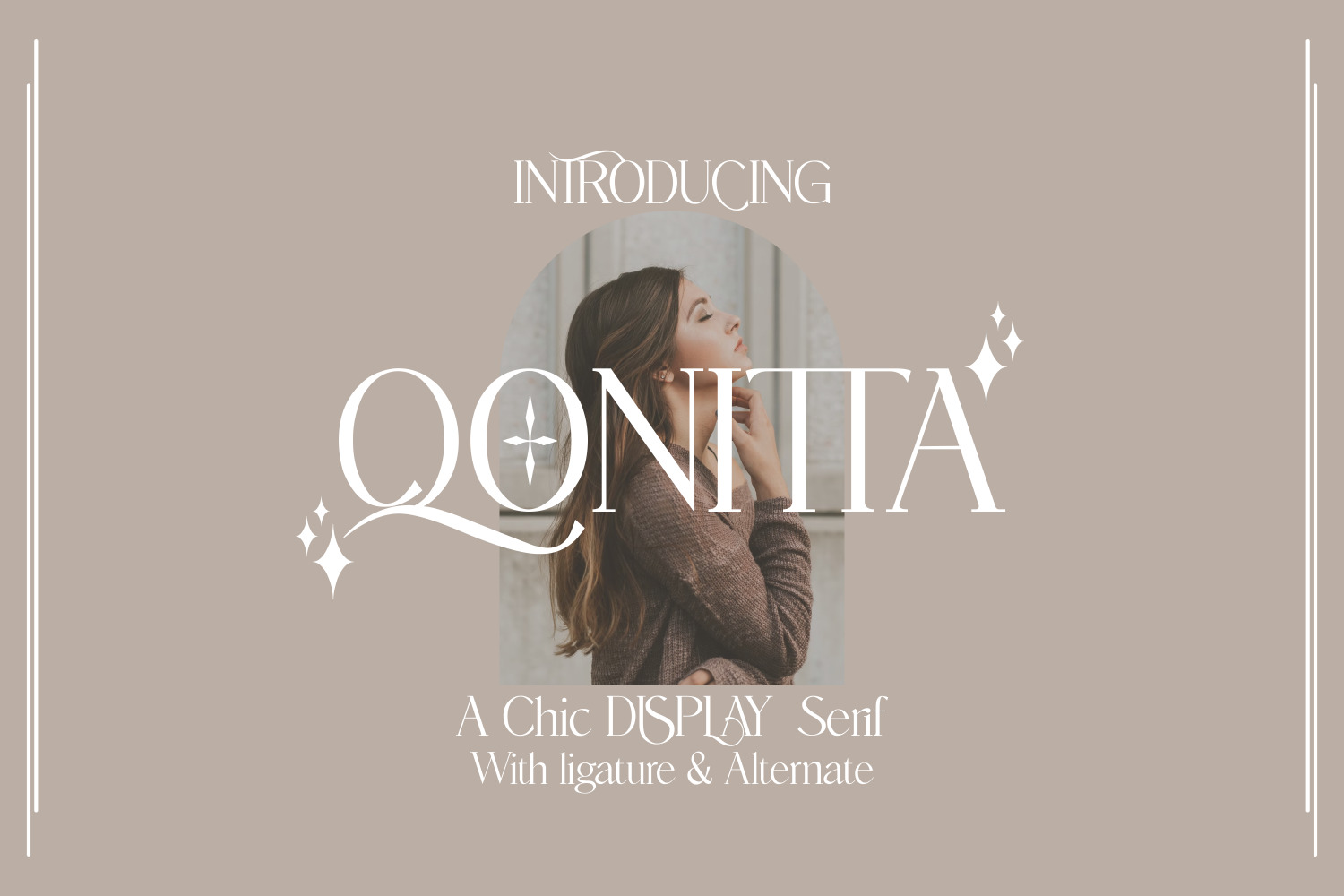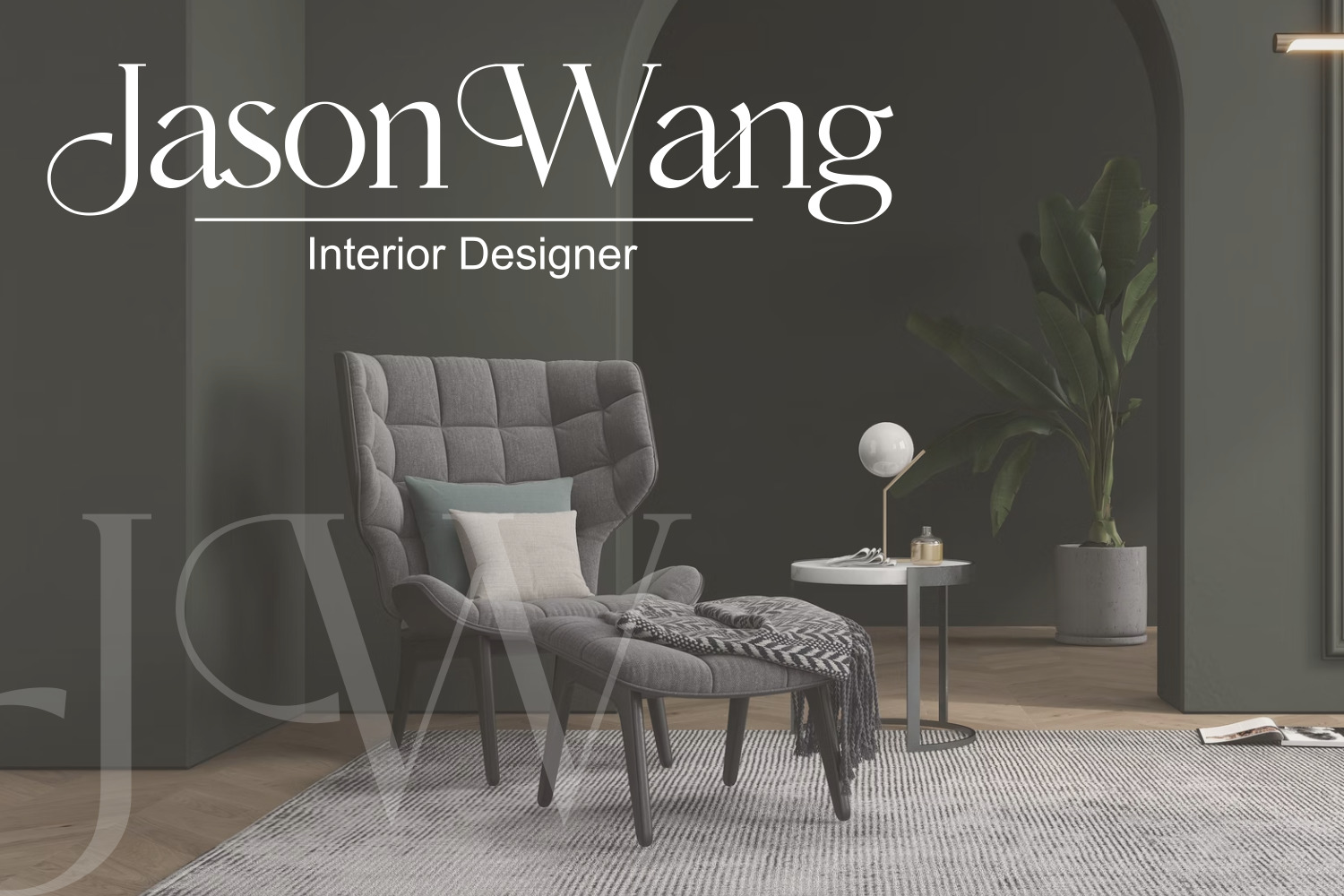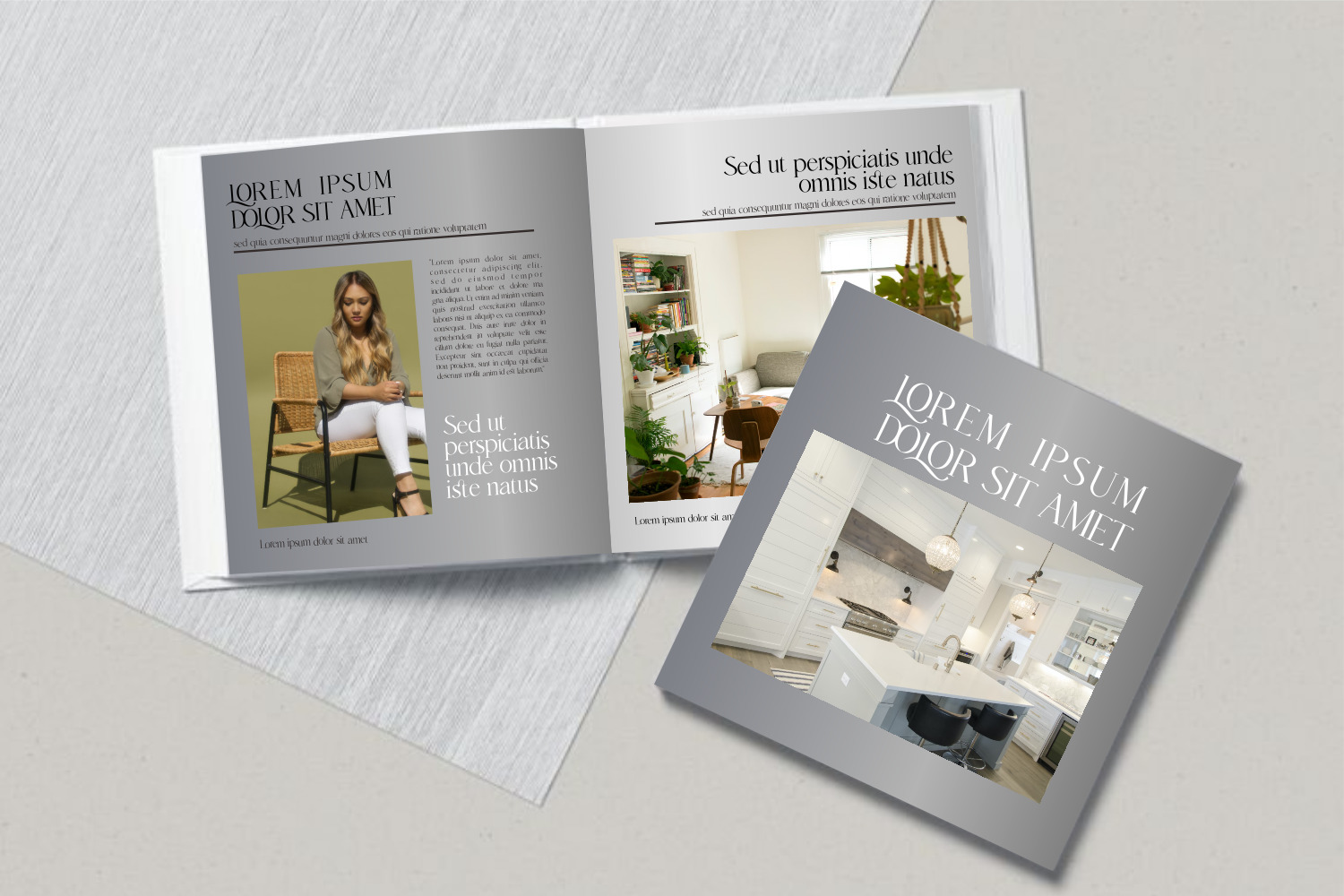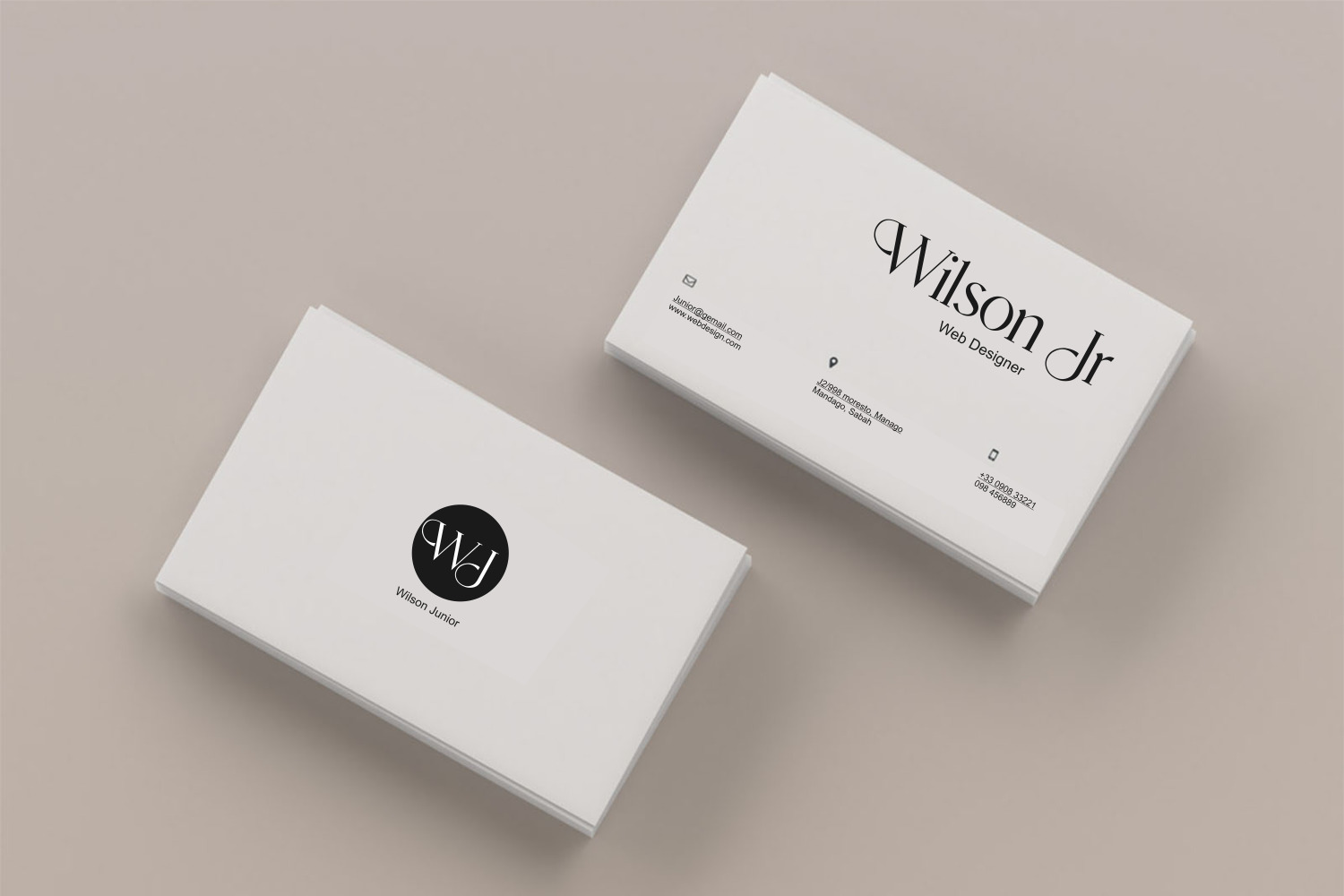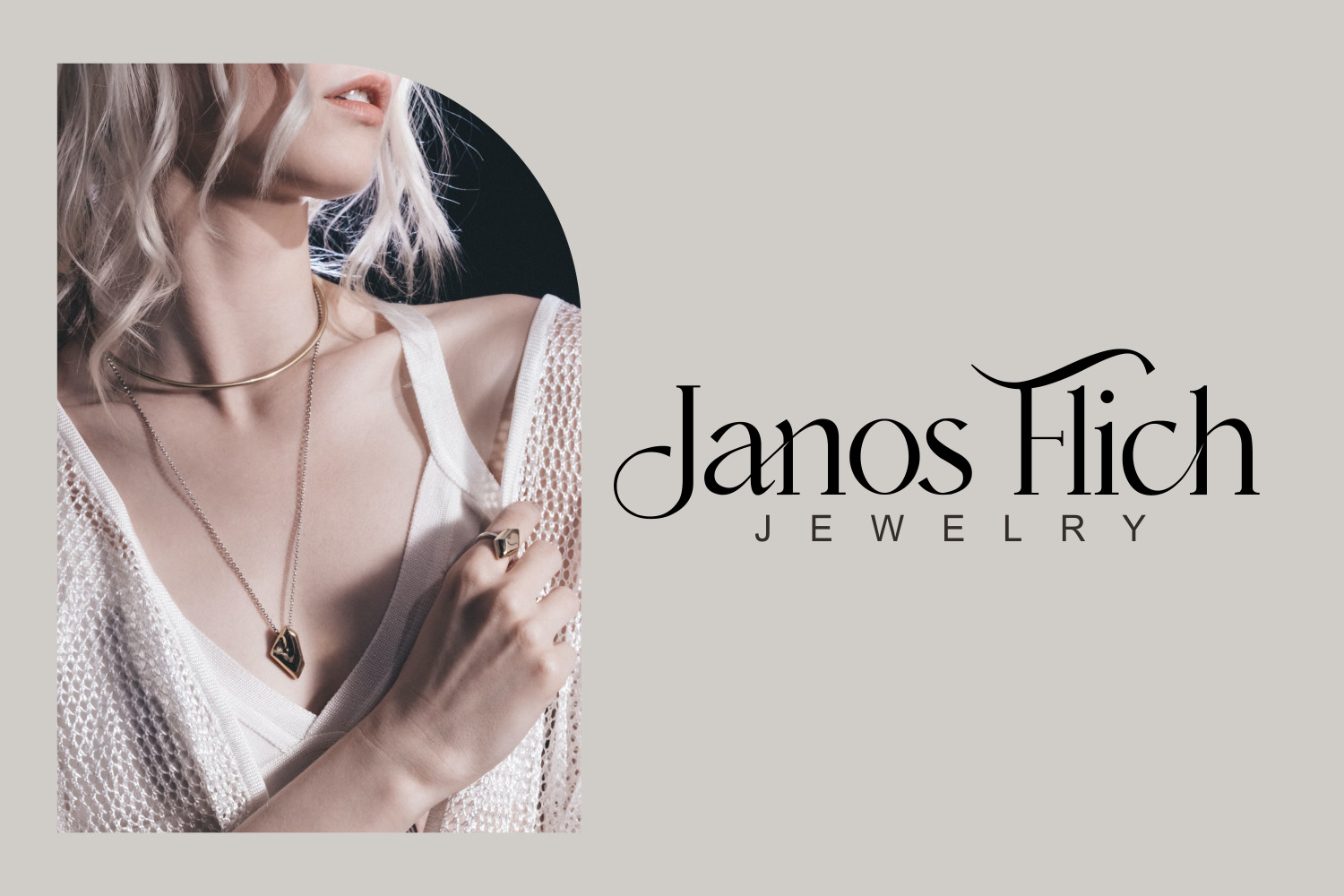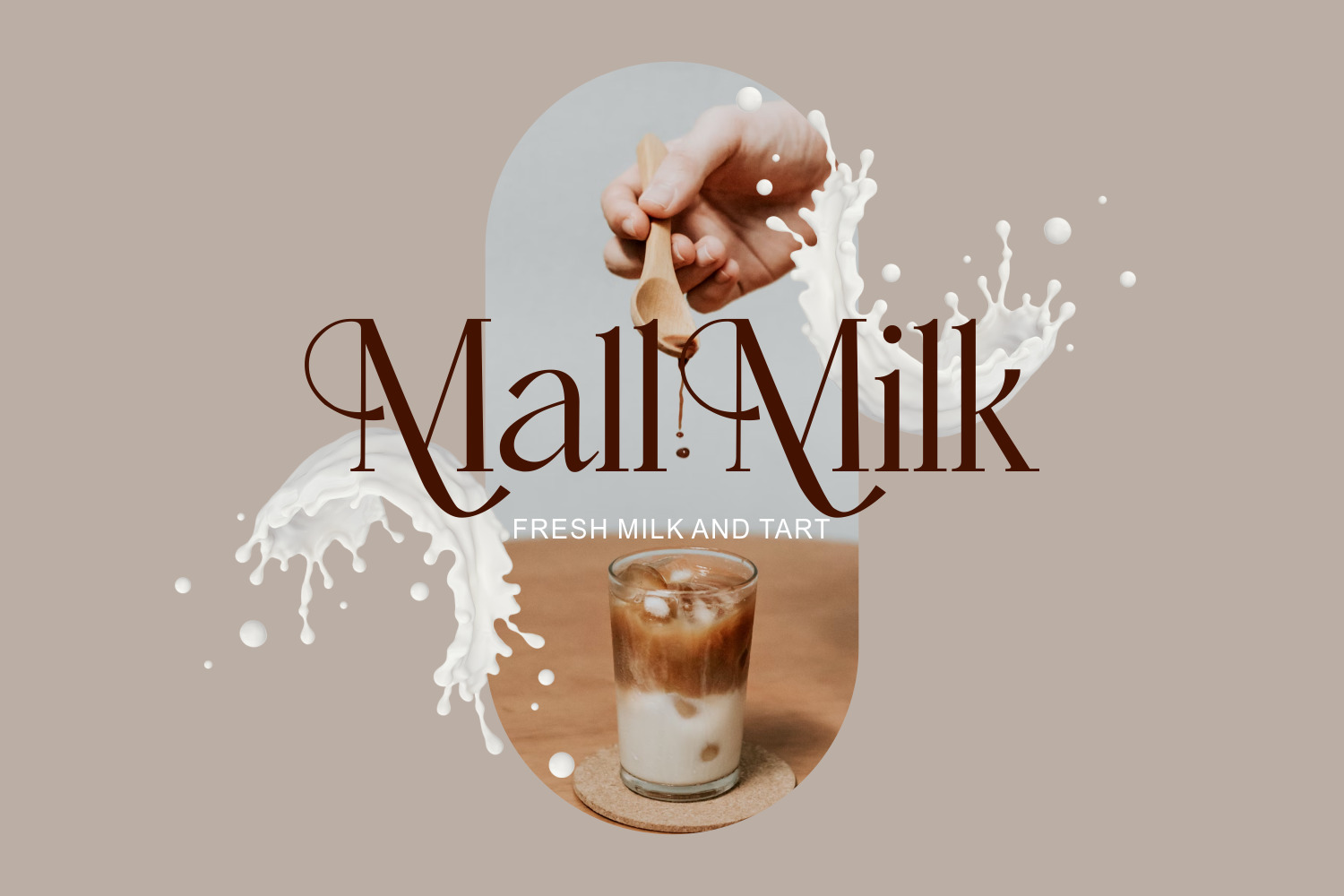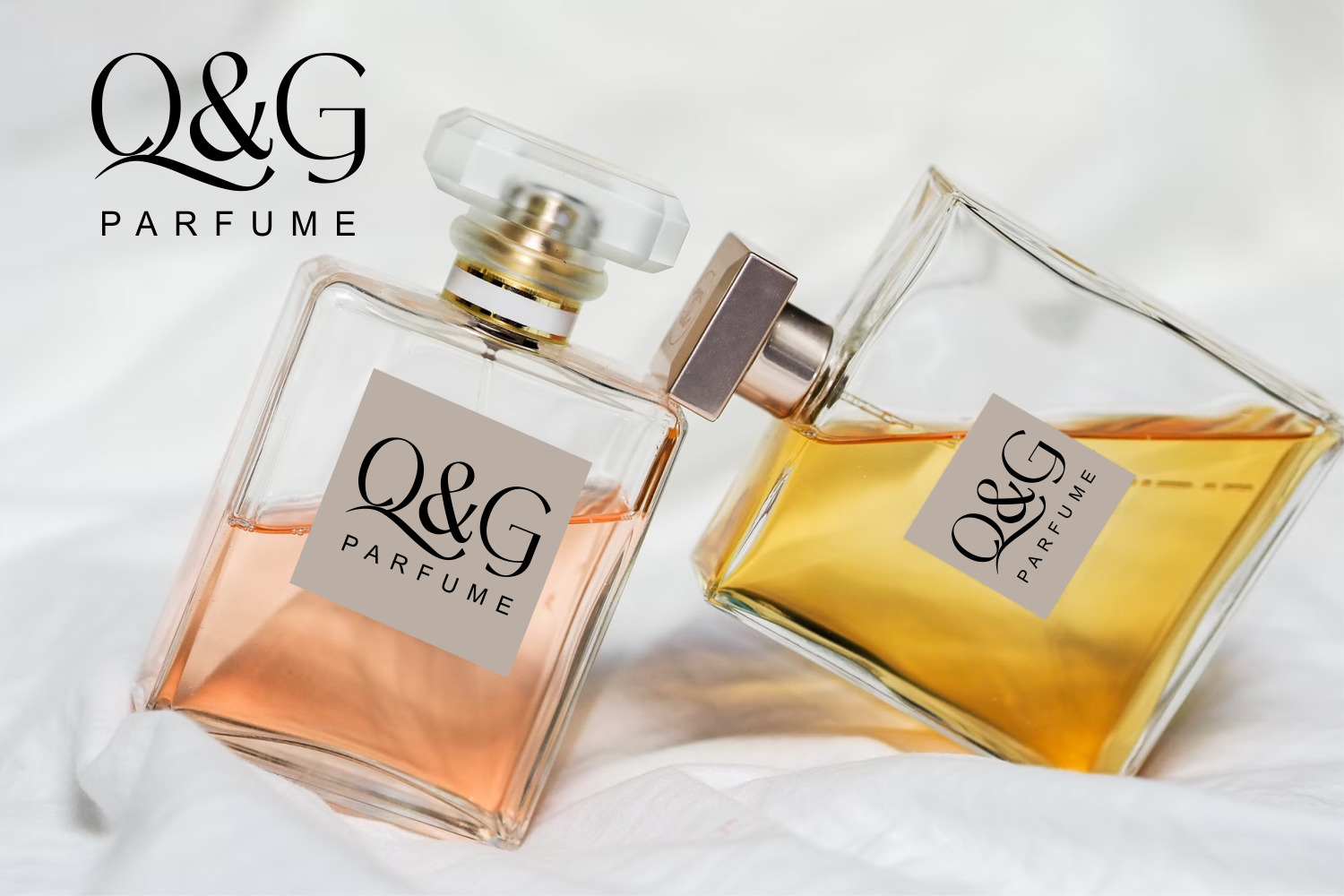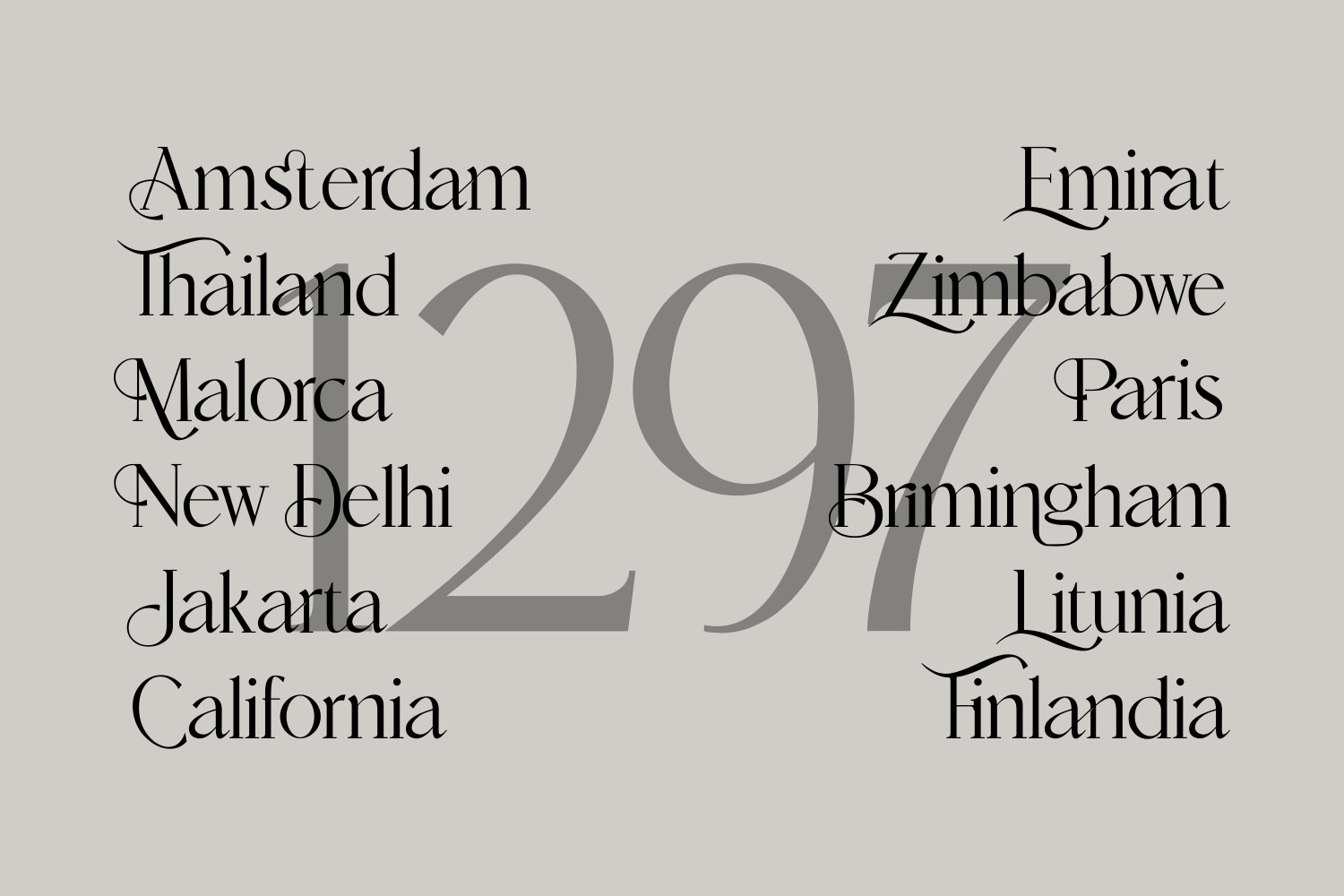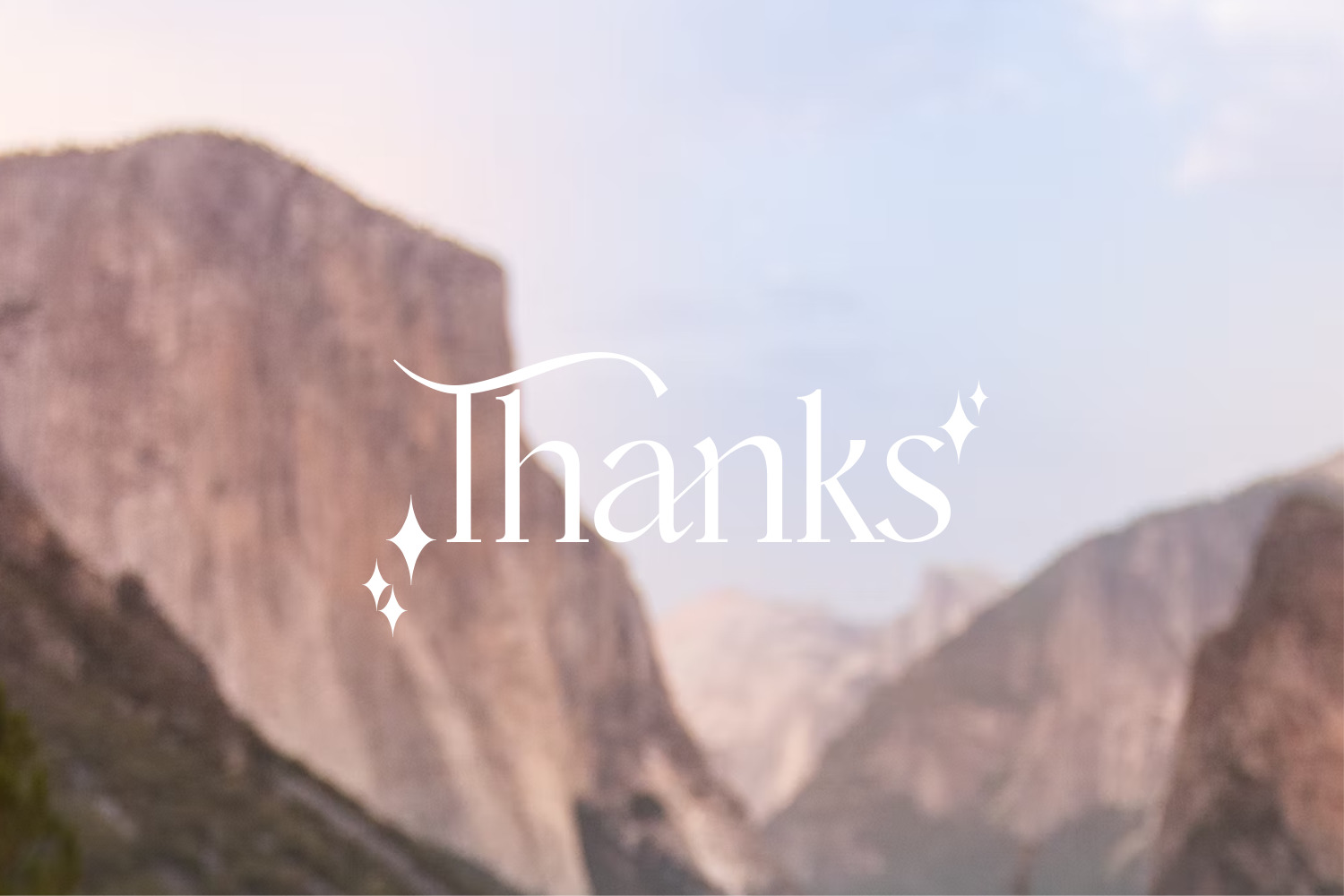
QONITTA Font
Called QONITTA is a serif display with a character that is beautiful, and elegant. With the addition of beautiful ligatures and alternatives to make your typography truly unique.
multi language support
Upper case and Lower case
Ligature
Alternate
Numerals & Punctuation
Accented characters
Uniq dot (a underscore underscore, b underscore underscore, c underscore underscore)